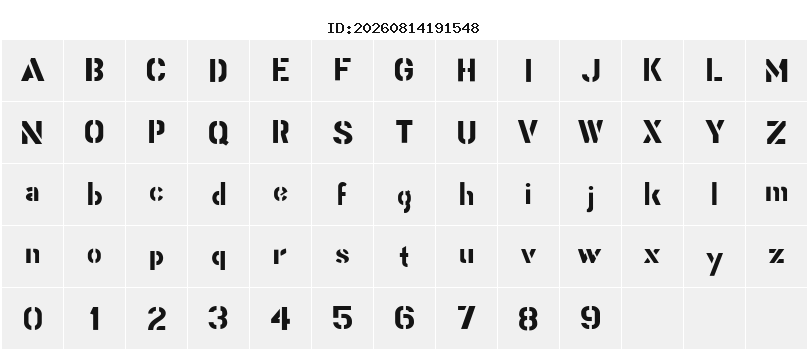
Stencil Gothic Preview
• Font Name: Stencil Gothic
• Full Font Name: Stencil Gothic
• PostScript Name: StencilGothic
About Stencil Gothic.ttf
Stencil Gothic.ttf is a modern, elegant sans-serif font designed for ultimate readability and visual harmony. Perfect for branding, headlines, web design, and print materials.